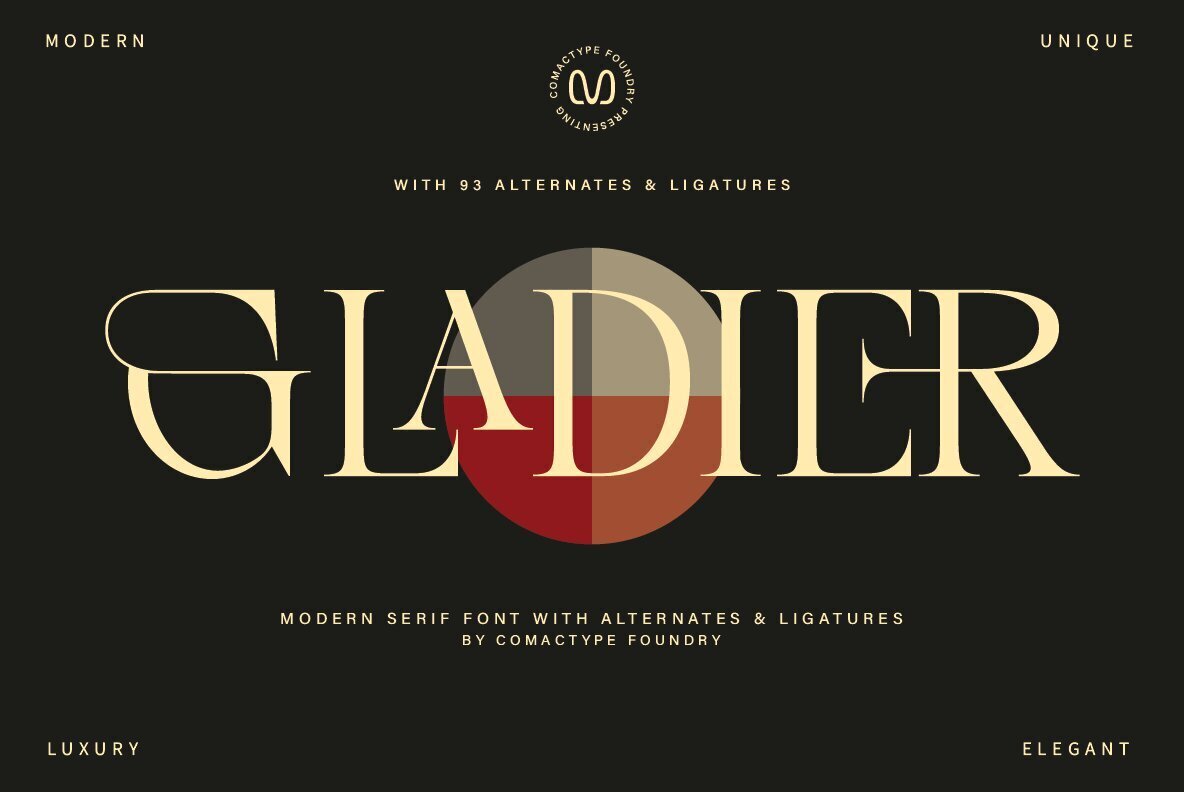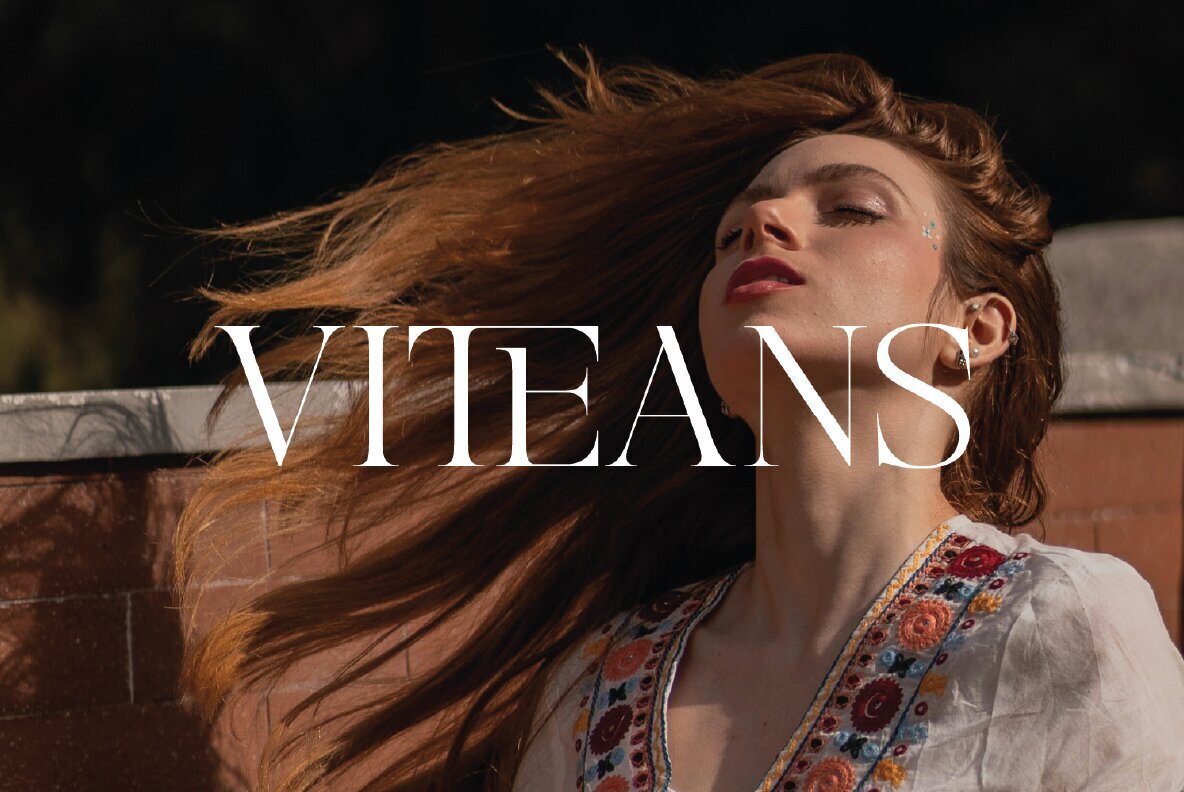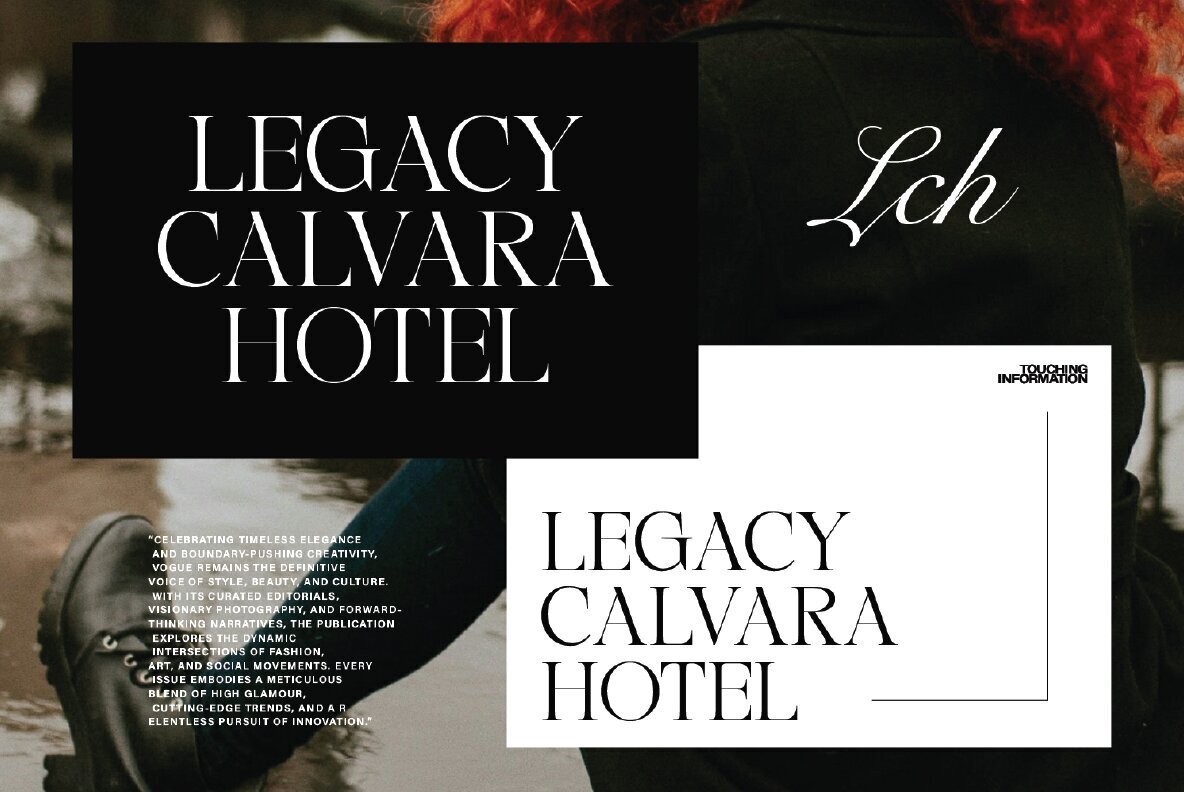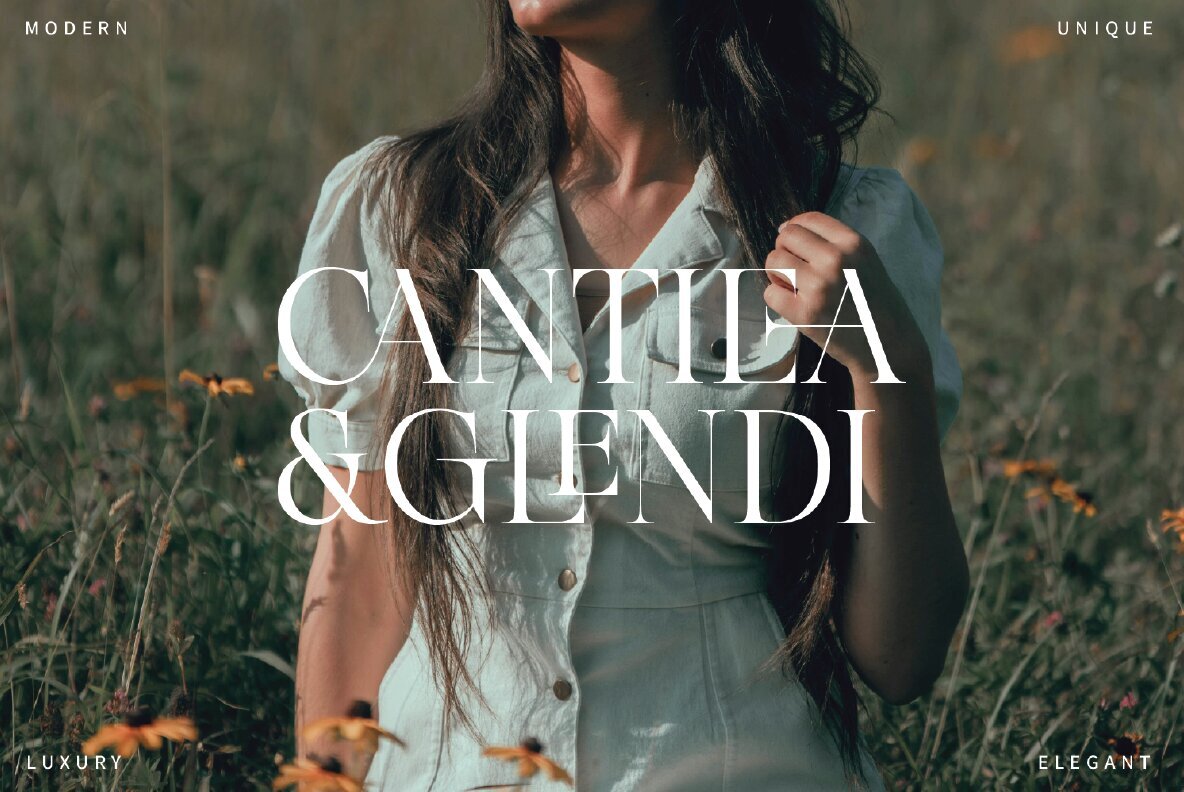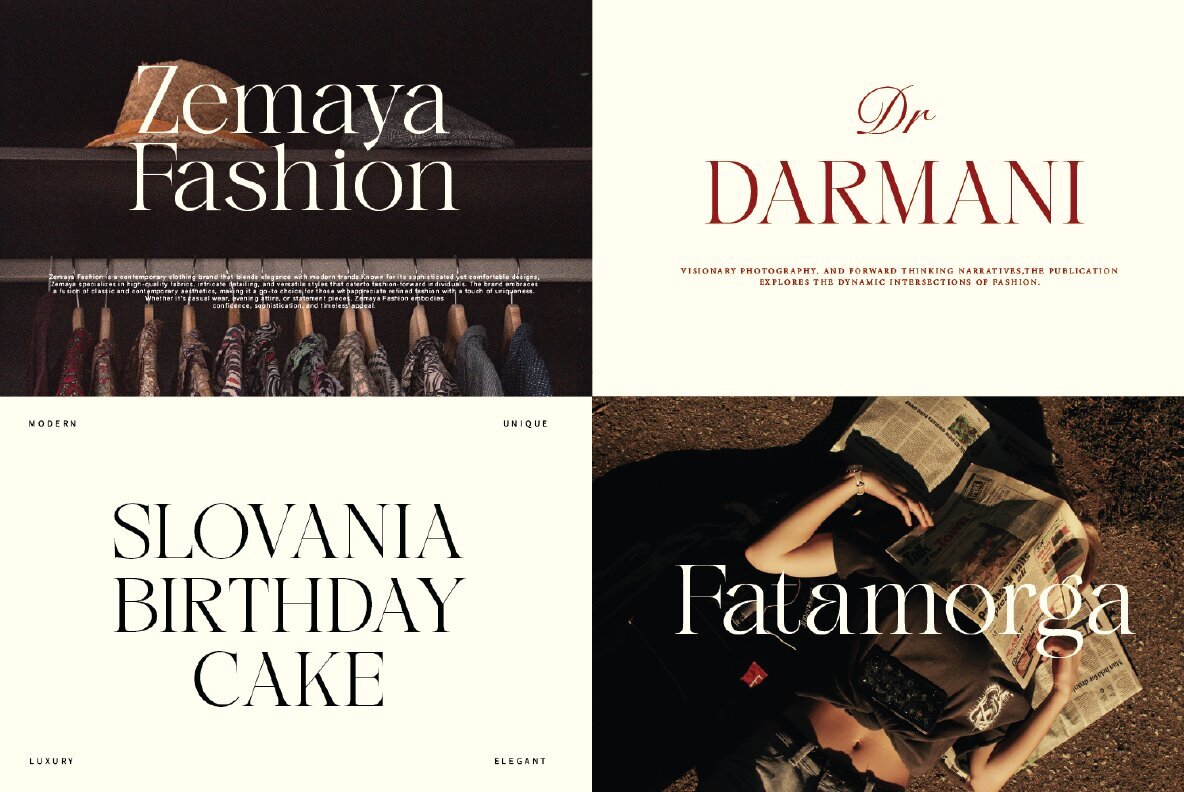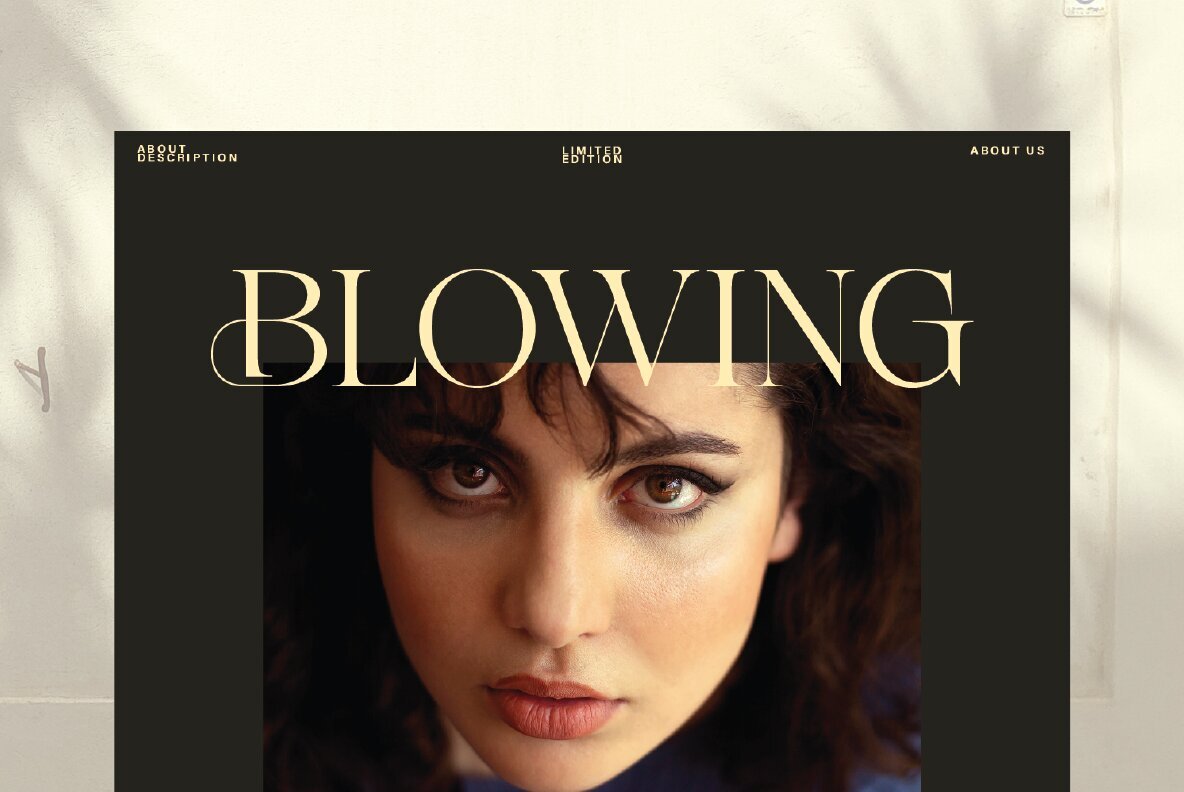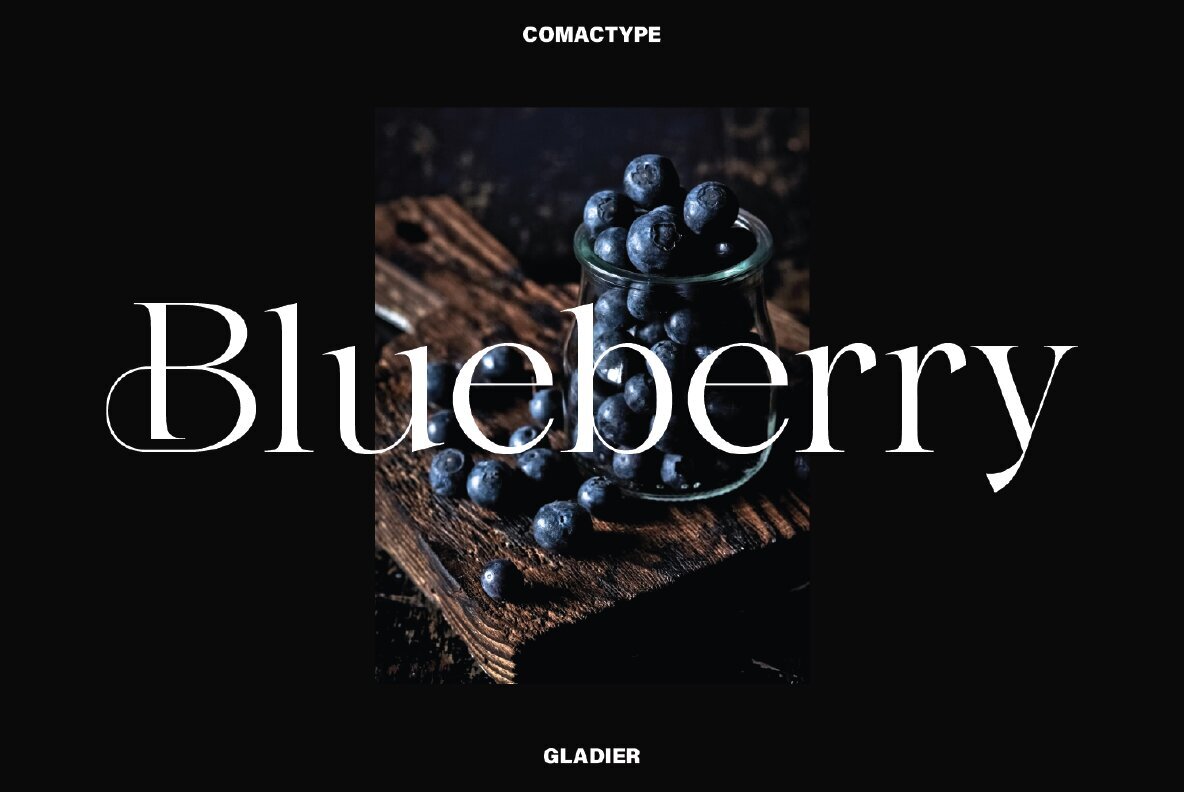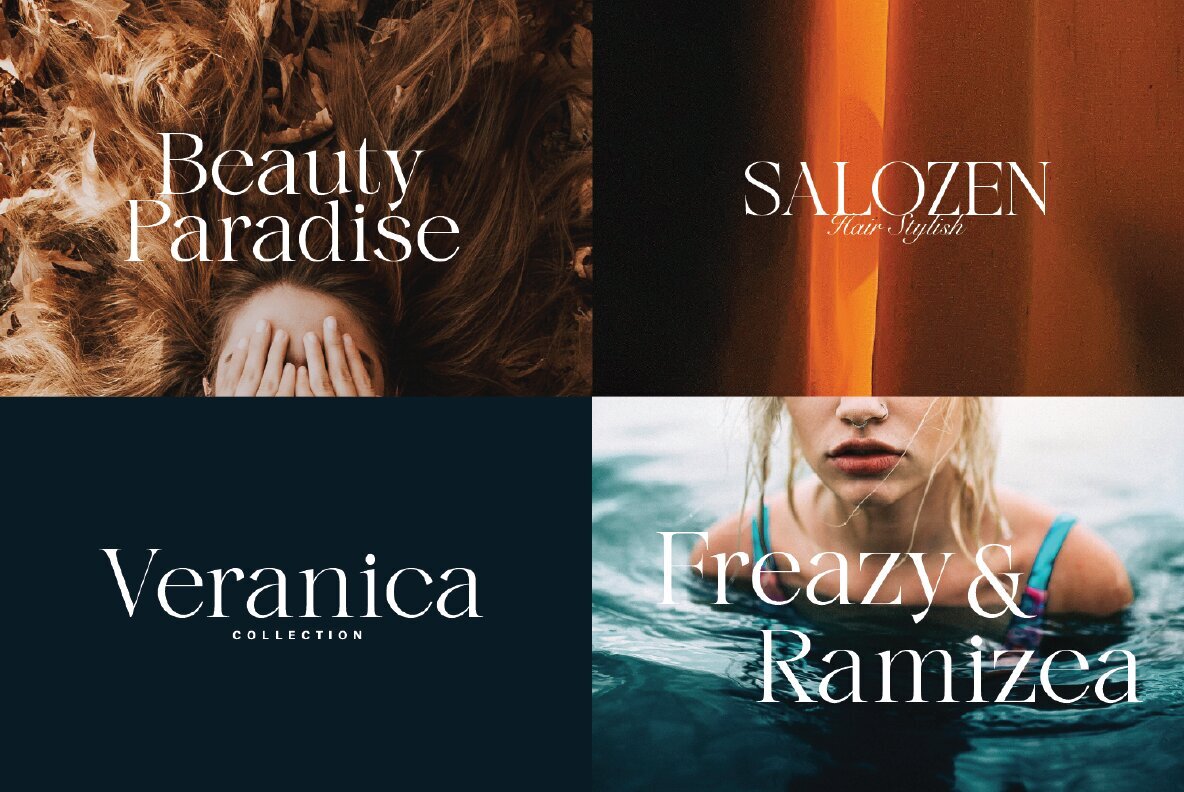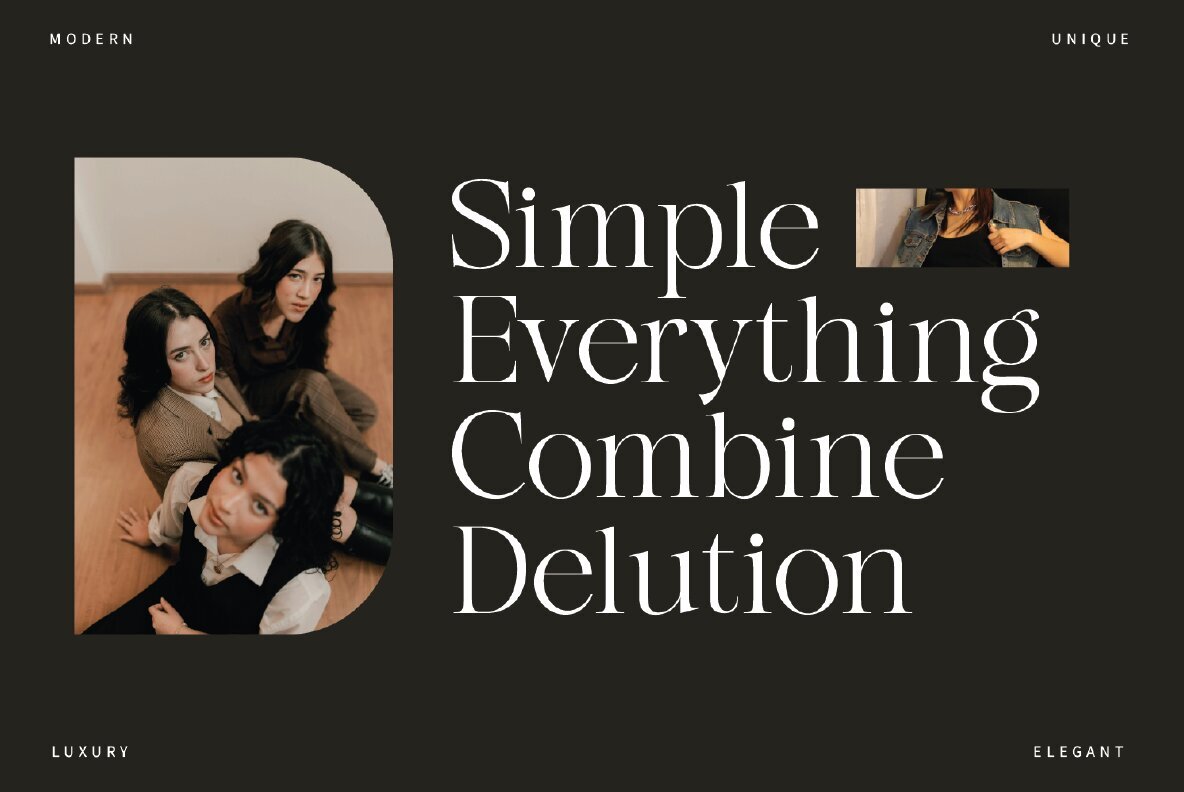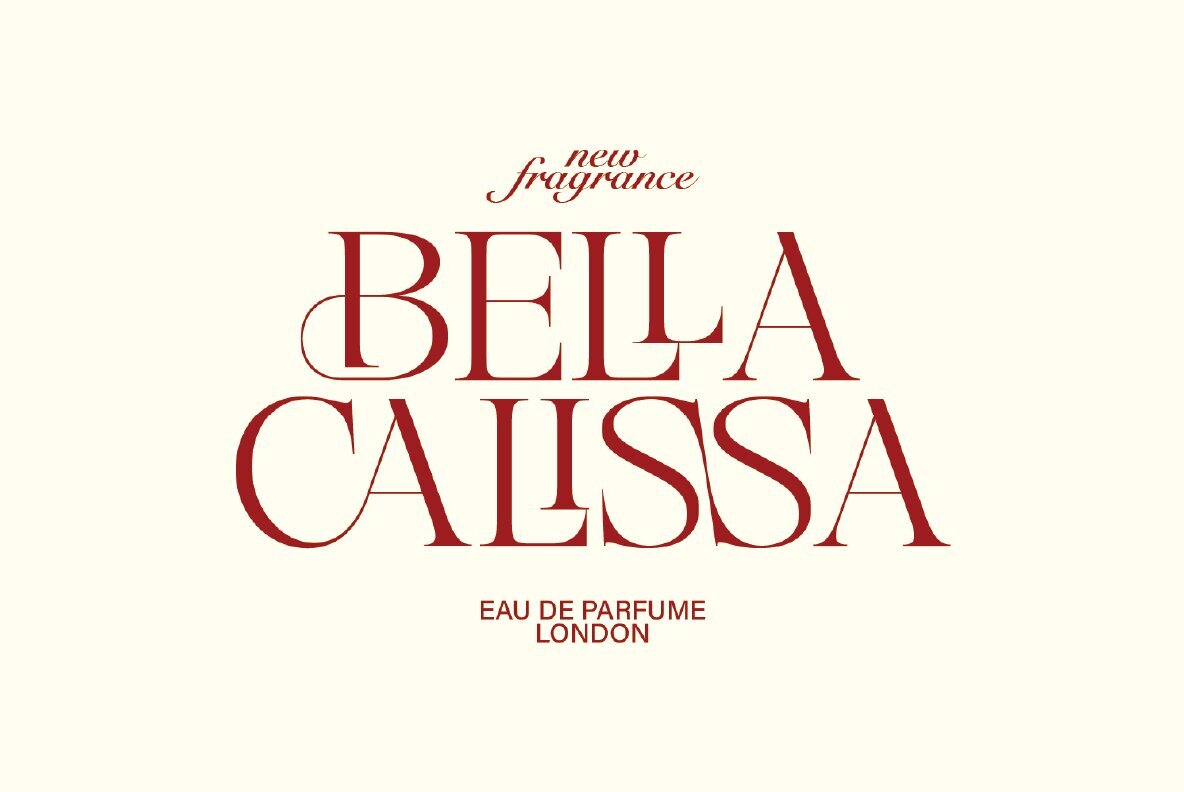
Gladier Font
GLADIER Regular
The Gladier font marries elegance with a modern flair, embodying luxury in its design. This serif typeface artfully combines classic elements with contemporary nuances, providing a refined balance that appeals to both tradition and innovation. Offering 93 alternates and ligatures, Gladier presents a wealth of creative opportunities for those looking to differentiate their designs. Crafted for projects where aesthetics reign supreme, Gladier excels in diverse applications including branding, editorial layouts, packaging, and logos. Its unique features and meticulous attention to detail make it an indispensable tool for designers aiming to impart an exclusive and professional touch to their projects.Gladier: A Modern Serif of Distinction